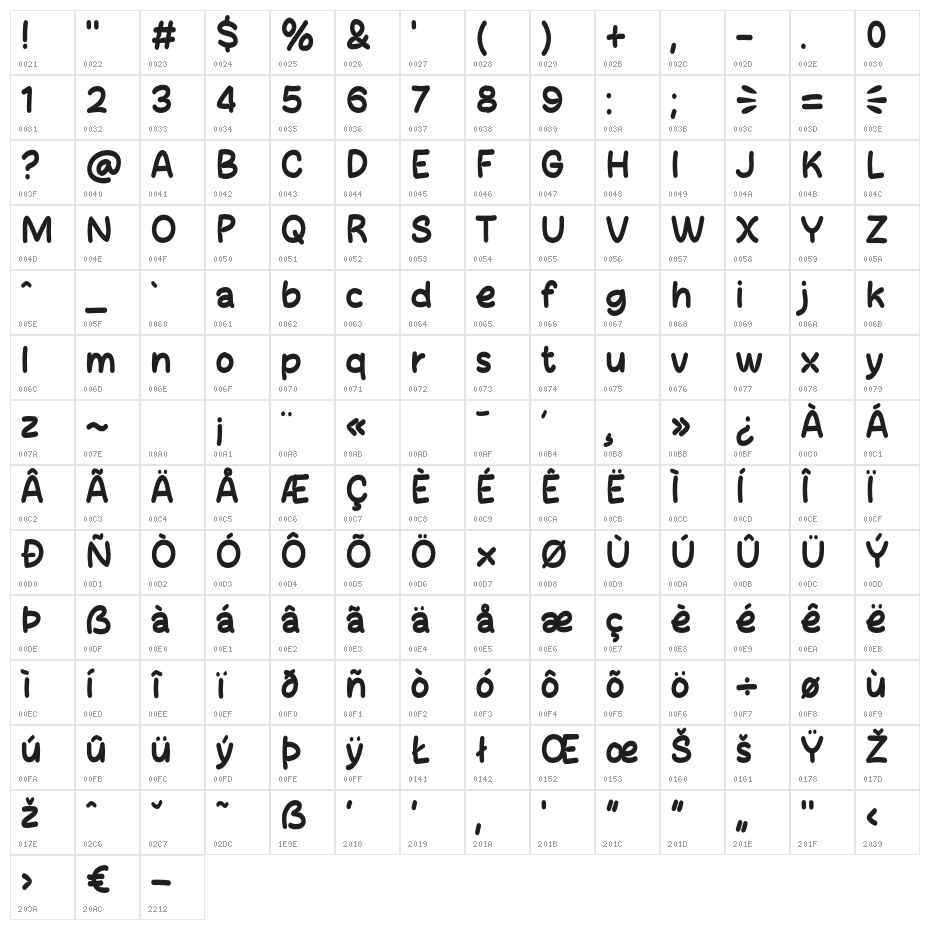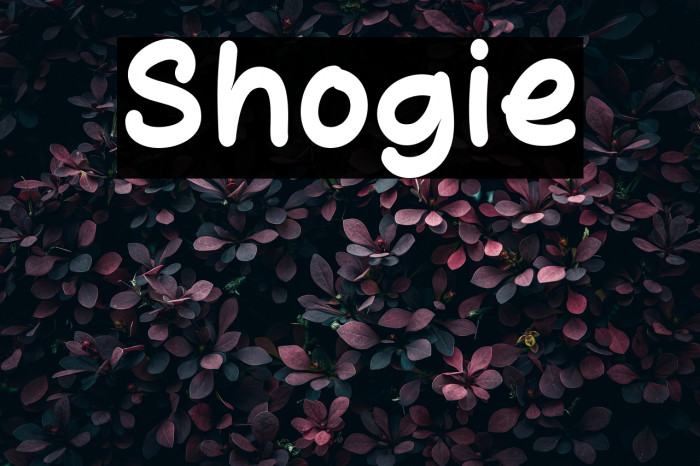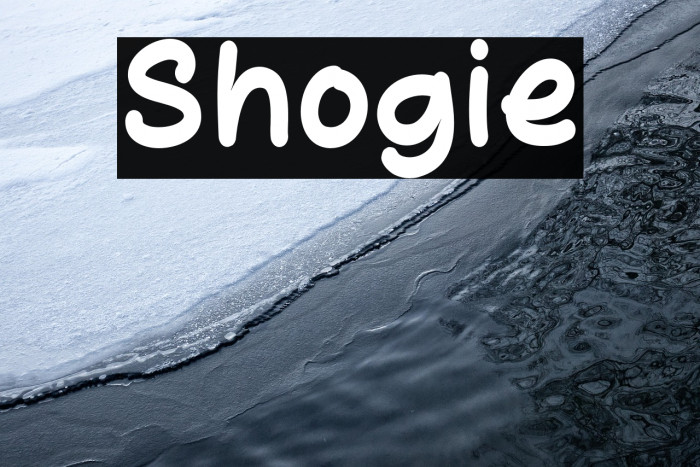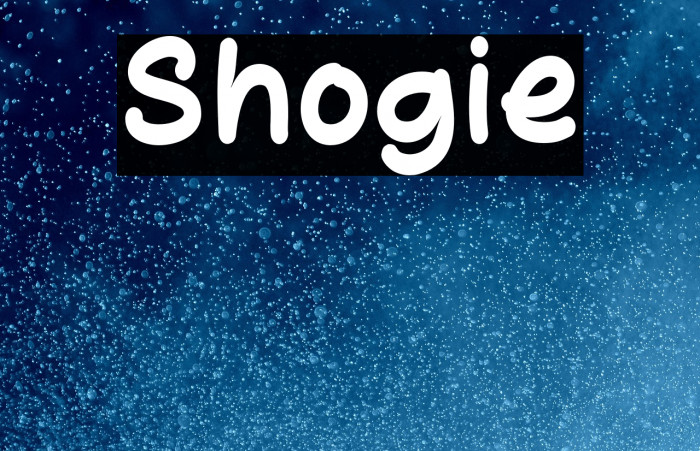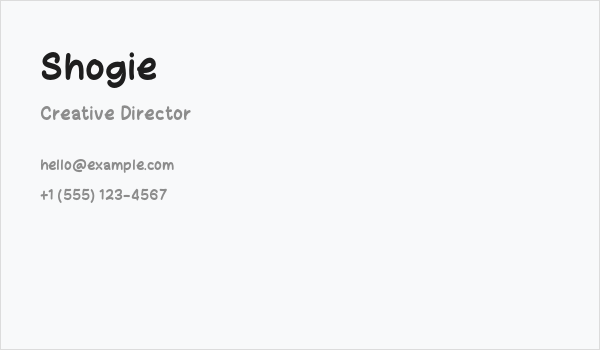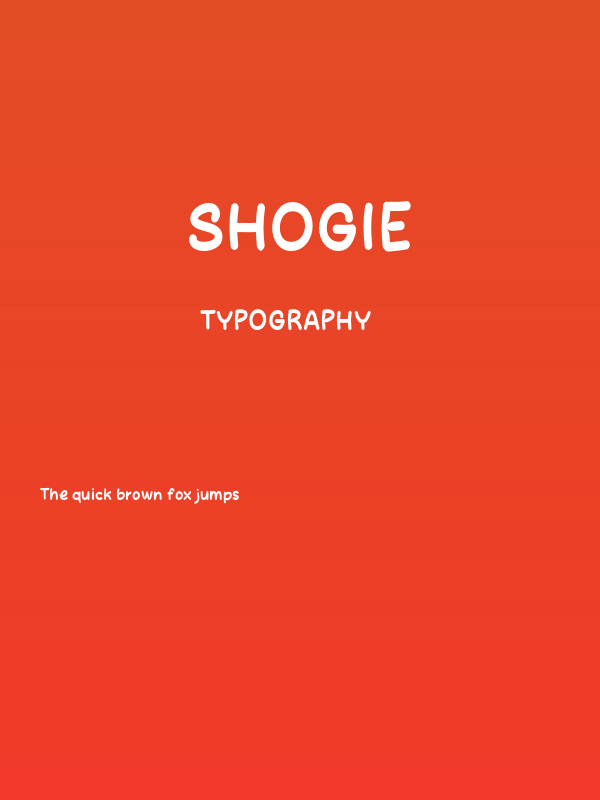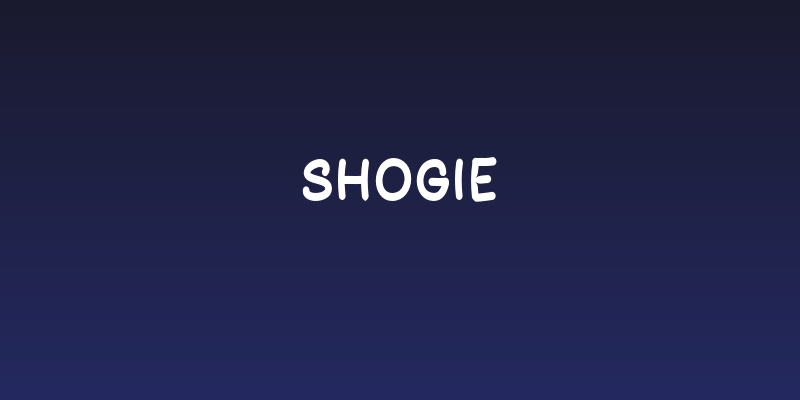
Shogie Font
This playful and rounded font exudes a friendly and approachable vibe, making it ideal for casual and informal settings. The characters are bold and slightly irregular, giving them a hand-drawn appearance that adds a touch of whimsy. The strokes are consistent in thickness, contributing to a uniform and cohesive look. The font's rounded edges and smooth curves enhance its inviting nature, making it suitable for projects that aim to convey warmth and friendliness. Its simplicity and clarity ensure readability, while the unique style adds character and charm.
| Overall Style | Playful |
| Use Case | Headlines, Logos, Informal Text |
| Proposed Projects | Ideal for children's books, playful branding, casual invitations, and social media graphics. |